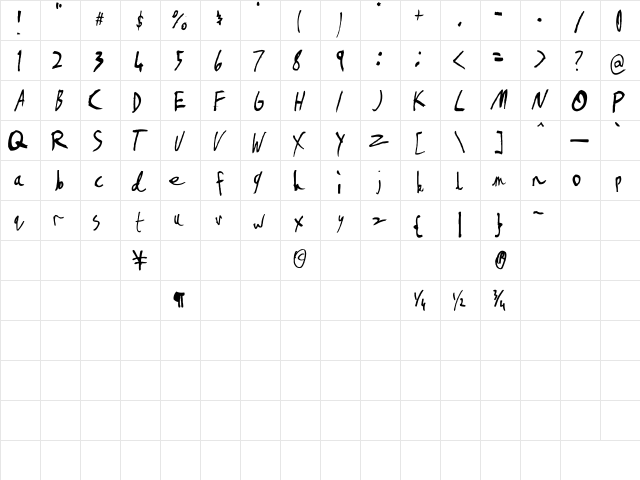
Sean's writing Regular Font Preview
Sean's writing Regular
Sean's writing Regular Font Details
| Foundry | High-Logic |
| Designer | High-Logic - Erwin Denissen 1999 |
Design Context for Sean's writing Typeface
Sean's writing is a composed and adaptable typeface that performs quietly and consistently across a wide range of design contexts.